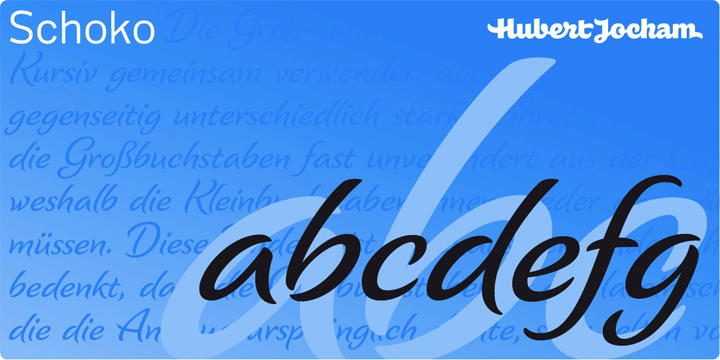
This delicious typeface is perfect for chocolate shop branding, bakery signage, confectionery packaging, dessert menu designs, candy store displays, gourmet food labels, sweet treat marketing campaigns, and artisanal chocolate brand communications that require appetizing appeal and indulgent sophistication with irresistible charm.
Schoko Font is exciting because it captures the rich, luxurious essence of premium chocolate through its smooth, flowing letterforms that evoke the sensual experience of fine confectionery. The font's warm character design and indulgent aesthetic create an immediate connection to sweetness and quality craftsmanship, making it perfect for food brands that want to convey artisanal excellence, premium ingredients, and the kind of irresistible appeal that makes customers crave authentic chocolate experiences.
The Schoko Font family includes delectable variations and sweet styling options, featuring light, regular, bold, and script versions, along with decorative flourishes and confectionery-inspired alternates that provide chocolatiers and designers with complete typographic tools for creating mouthwatering branding and appetizing visual communications.
Indulge in sweet typography with Schoko Font Free Download, a typeface that brings chocolate luxury to contemporary food branding projects. This exceptional font combines artisanal craftsmanship with commercial appeal, making it an essential resource for chocolatiers, pastry chefs, and designers working on gourmet food brands. The beautifully crafted letterforms balance readability with sensual appeal, ensuring your message conveys the premium quality and irresistible sweetness that defines this deliciously sophisticated and authentically chocolate-inspired typeface.